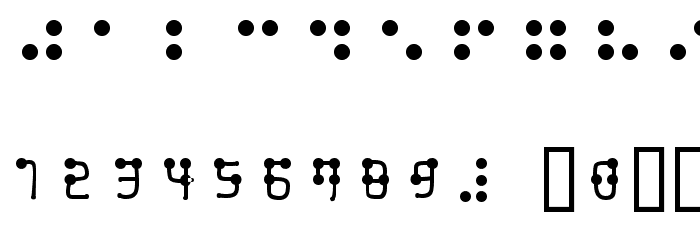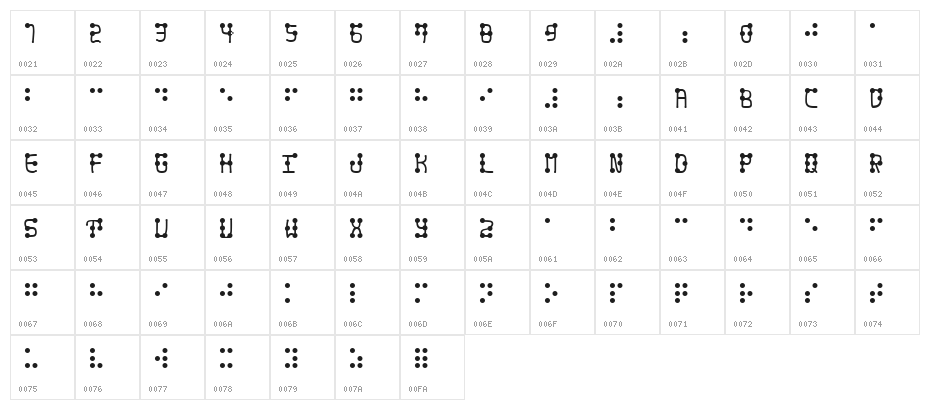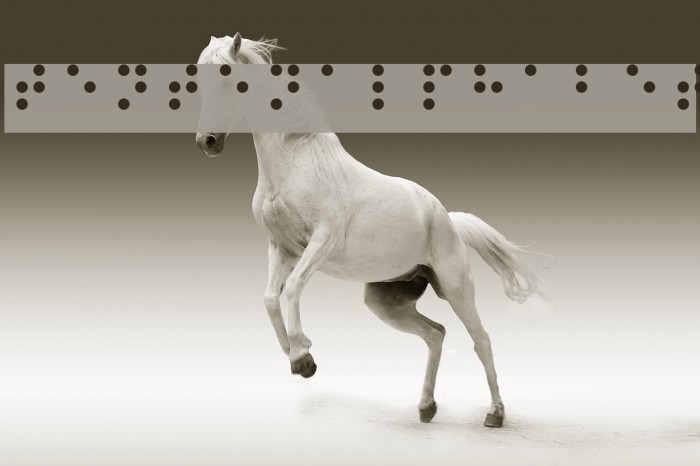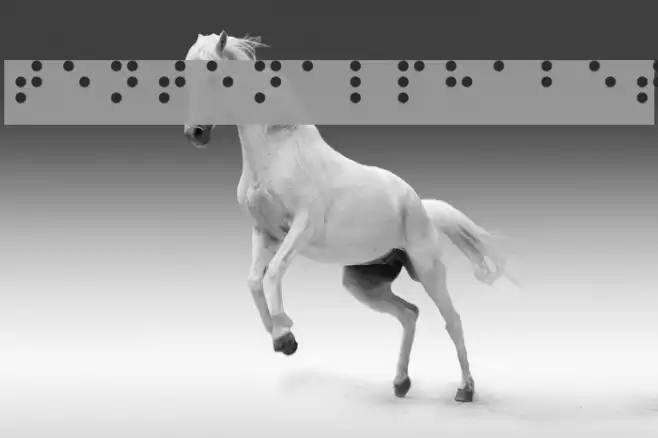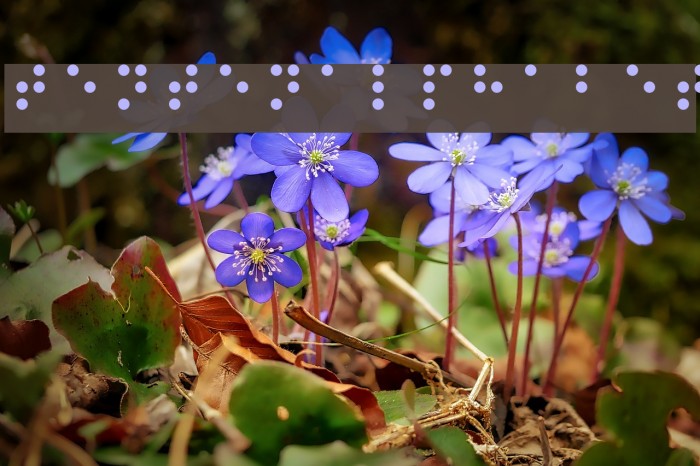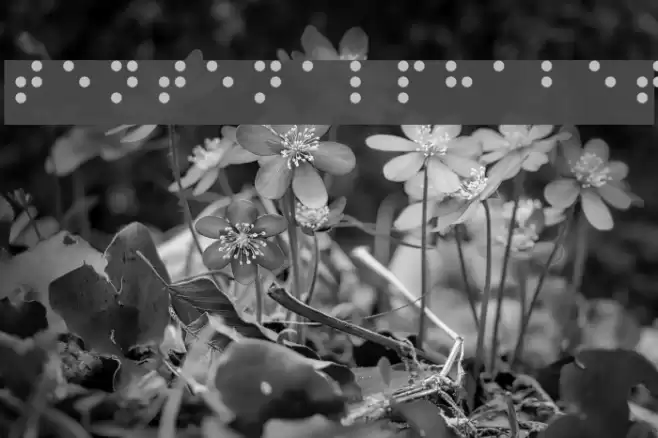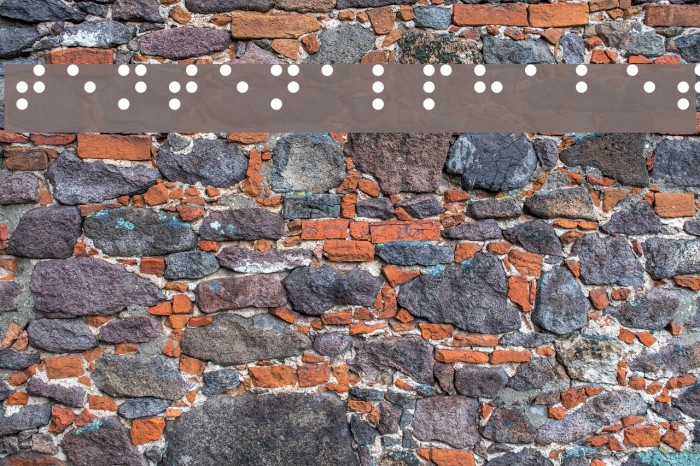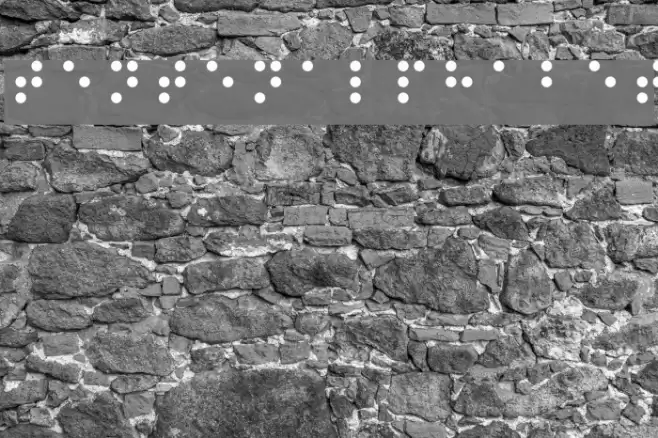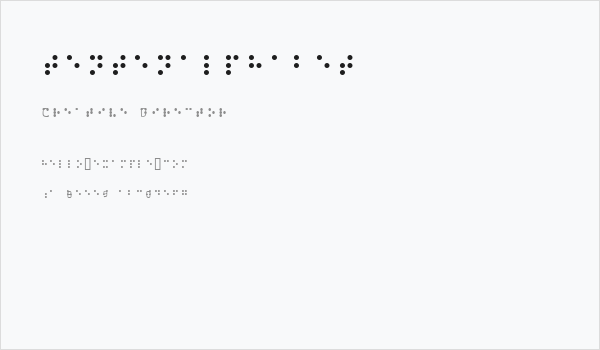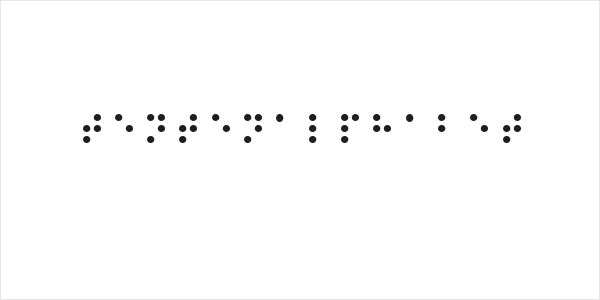
tentenalphabet Font
tentenalphabet Description
This font features a unique and playful design, characterized by its dotted and circular elements that form each letter and number. The uppercase and lowercase letters maintain a consistent style, with rounded edges and a whimsical appearance. The numbers follow the same playful theme, adding a touch of creativity to the numeric characters. The special characters are also designed with the same dotted motif, ensuring a cohesive look throughout the font. This font is ideal for projects that require a fun and engaging typeface, perfect for children's materials, playful branding, or creative design projects.
| Overall Style | Playful, Creative |
| Use Case | Headlines, Logos, Creative Projects |
| Proposed Projects | Ideal for children's books, playful branding, creative design projects, and educational materials. |